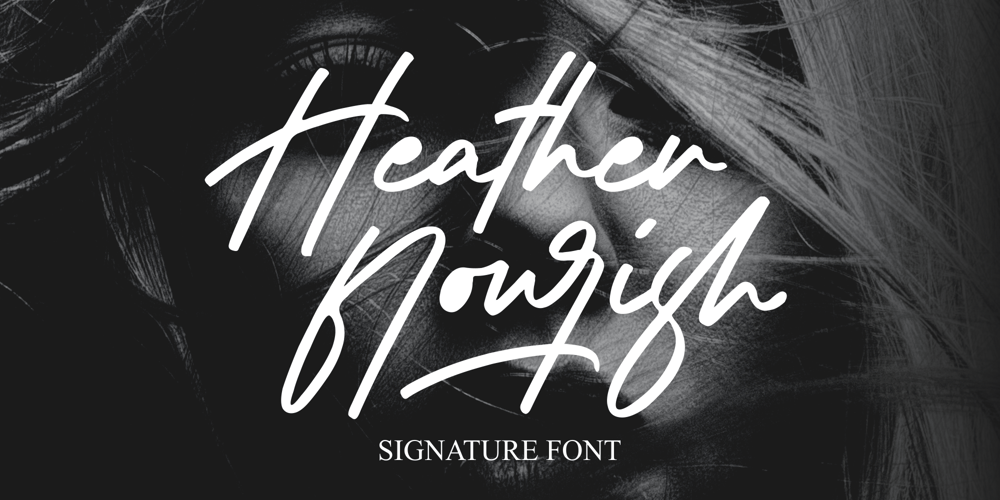
Heather Flourish Font Family was designed by Bagus Arya Kirana and published by Krntype Studio. Heather Flourish contains 1 styles and family package options. Introducing Heather Flourish fontHeather Flourish is a signature font created to impress an elegant and luxurious lookHeather Flourish is perfect font for branding & logo projects, such a photography studio, clothing/fashion studio, also suitable for Product Packaging, Title on your article or book cover, Stationary, and many more.this font has a ligature and swash which you can access by typing the letters a-gYou can try it first by typing the name you want below, I hope you can create amazing custom personal signature or logo with this fontyou can buy this font at https://www.myfonts.com/foundry/krntype-studio/Enjoy the font, feel free to comment or feedback, send me PM or email at krntype@gmail.com.Thank you!